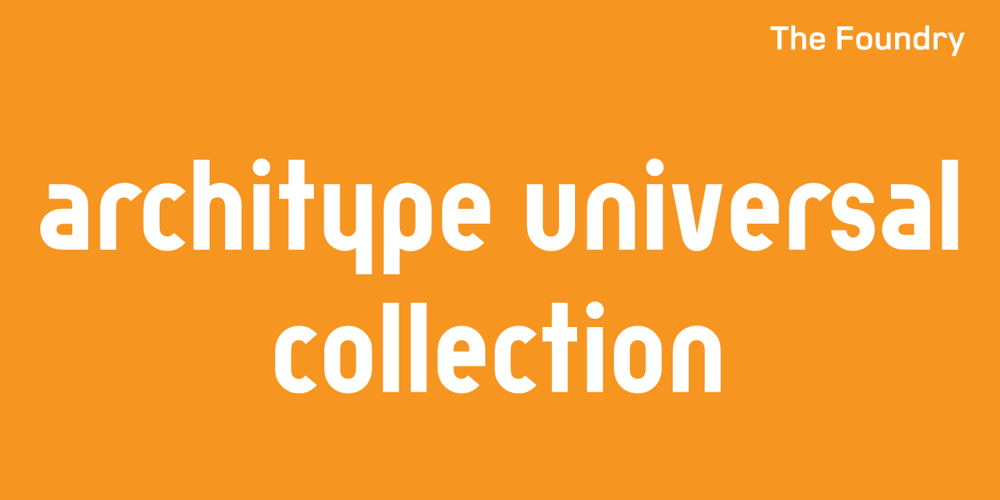
Architype Tschichold Font Family was designed by published by The Foundry. Architype Tschichold contains 1 styles and family package options. Architype Universal is a collection of avant-garde typefaces deriving mainly from the work of artists/designers of the inter-war years, whose ideals underpin the design philosophies of the modernist movement in Europe. Their ‘universal’, ‘single alphabet’ theory limits the character sets. Architype Tschichold is a faithful rendering of Jan Tschichold’s 1929 experimental alphabet which was influenced by Bayer’s single-alphabet. His design was never put into production. This re-creates his original geometrically constructed design, including some phonetic characters.